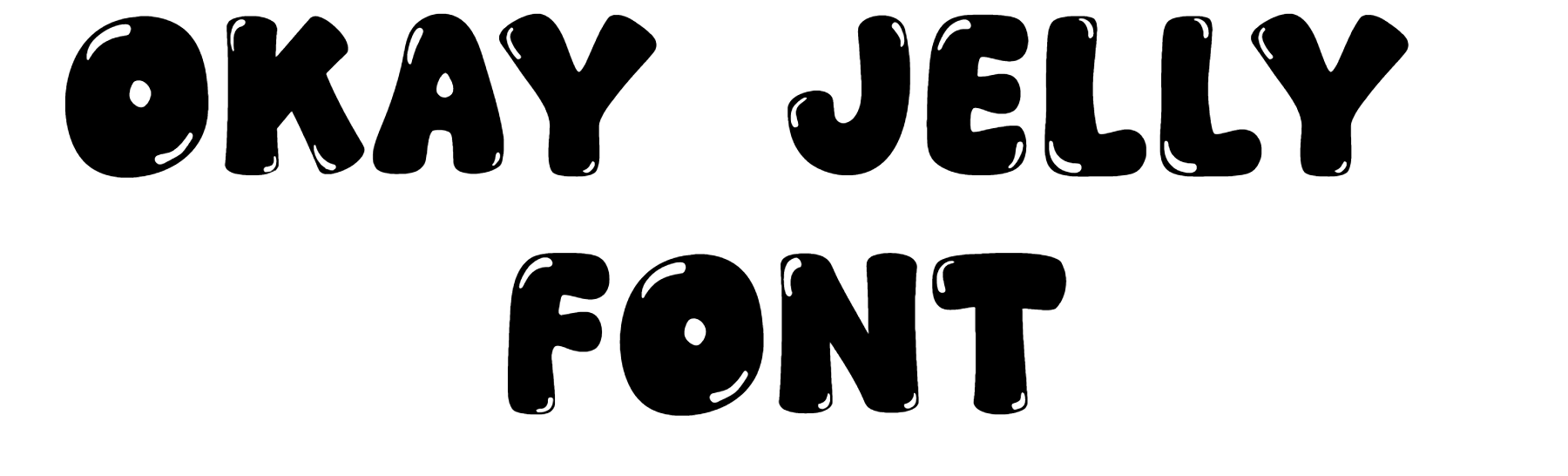
Okay Jelly
Okay Jelly is a cartoon font made by MJType (Muhamad Junaid) (2025). It has a cheerful, hand-drawn look that makes people smile before they even read the words. You can download it for free and test it with your own words in the preview above.
What You Can Type With Okay Jelly
Okay Jelly covers the full alphabet in upper and lowercase, plus all ten numbers, so you can set names, dates and prices without switching fonts. Everyday marks like &, !, ? and @ are there too. Thanks to its accented letters, it also works for Spanish, French, Portuguese and Italian, not just English.
Ligatures and Smart Letters in Okay Jelly
Where Okay Jelly Works Best
Designers usually reach for fonts like Okay Jelly when they're making kids' books, birthday invites and fun YouTube thumbnails. Its lowercase letters are small compared to the capitals, so set it a size or two bigger than usual. Cartoon fonts are great for short, fun lines. If you place it over a busy photo, add a thick outline or a drop shadow so it stays readable.
Does Okay Jelly have ligatures?
Yes. Okay Jelly has ligatures that turn on by themselves in most design apps and browsers, so you don't need to do anything special.
Does Okay Jelly support accented letters?
Yes. Okay Jelly includes the accented letters needed for Spanish, French, Portuguese and Italian, so it works for more than just English.